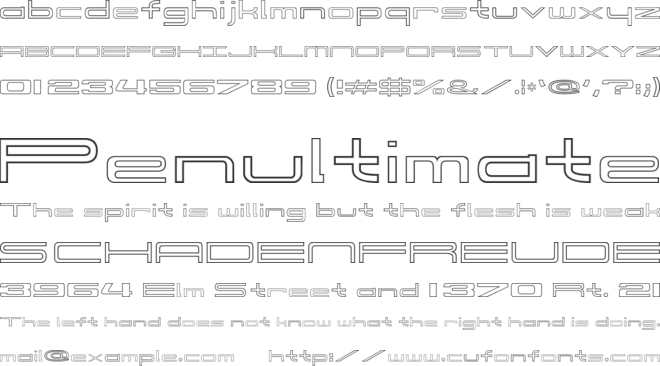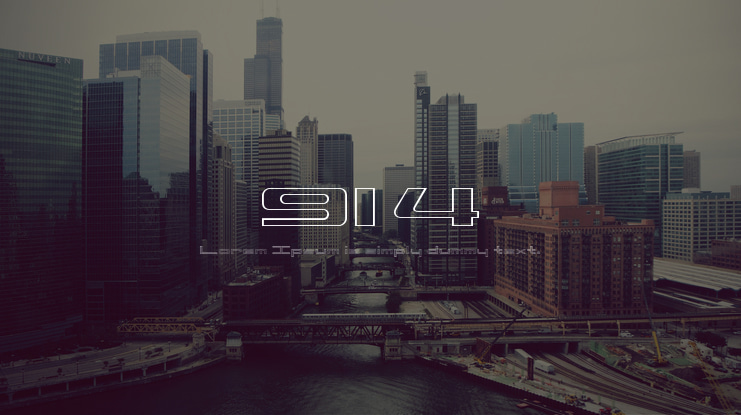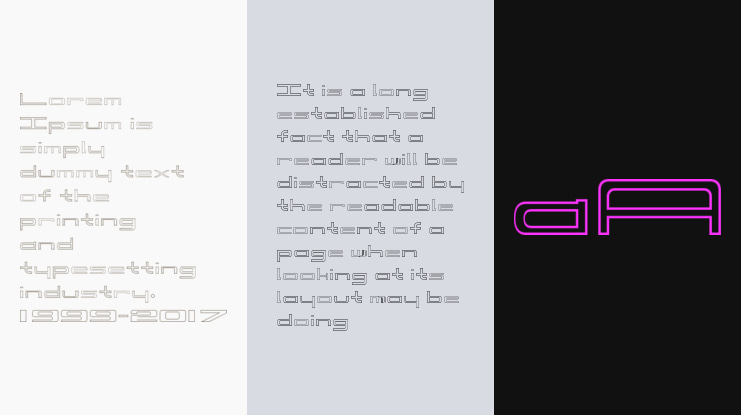
914 Font Family
This font is a rounded corner box shape, Sans Serif, Gothic, extended / expanded and Euro style type of font. It is similiar, but not an exact duplicate, of the characters that were once used, in reference to the now discontinued 914 automovtive/sports vehicle that was manufactured between 1969-1975. This font was used on various emblems, signage, placquards, brouchures, literature, promotional items, racing applications and/or other applications.
Unfortunately, the original font was only made in a dozen or so upper case letters and numbers. Therefore, all of these characters are an interpretation/interpolation, such as a "best guess" or "what it should be" scenario. This font conversion/interpretation has been "cleaned up" and now has a font ratio of 1:5:11 ( Line width : height : width ).